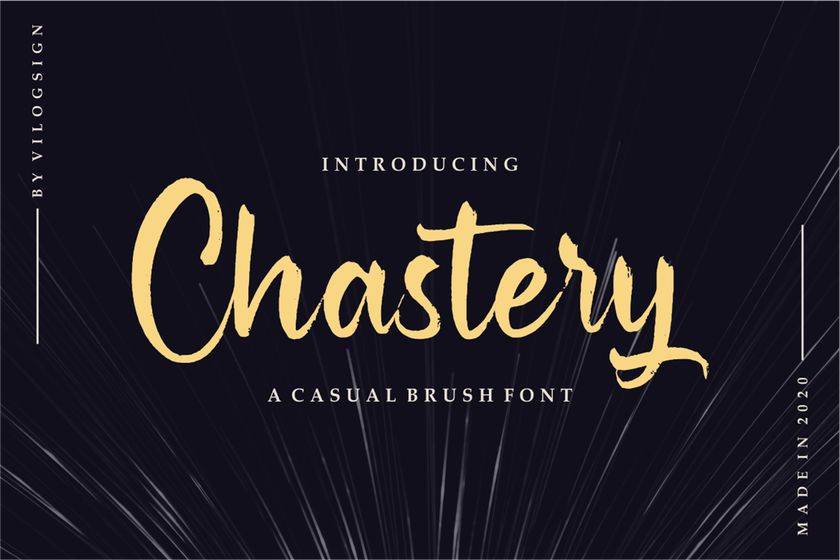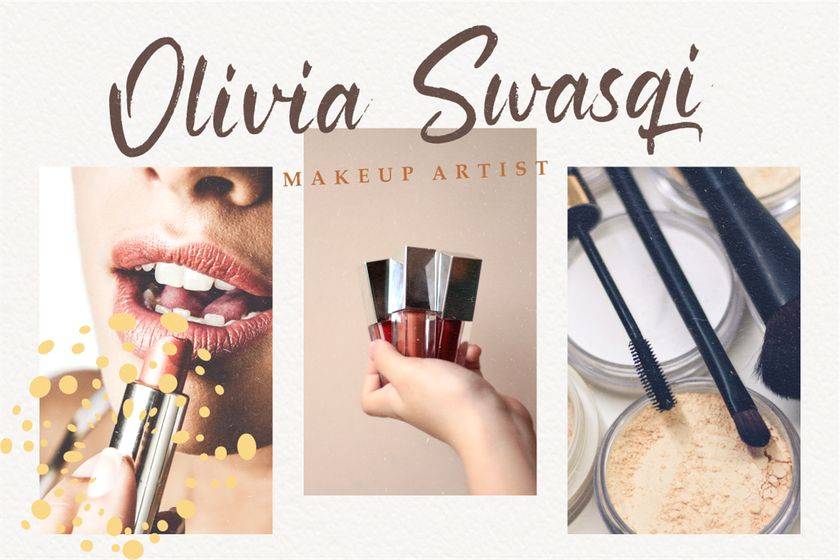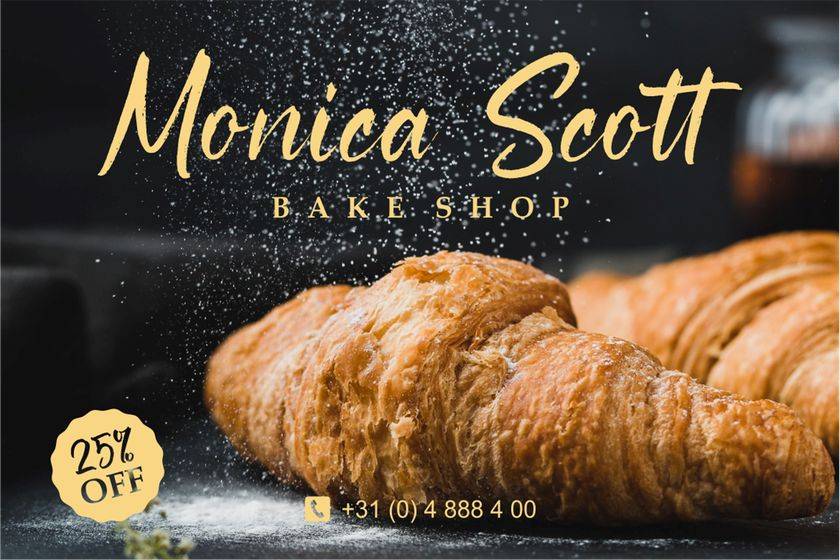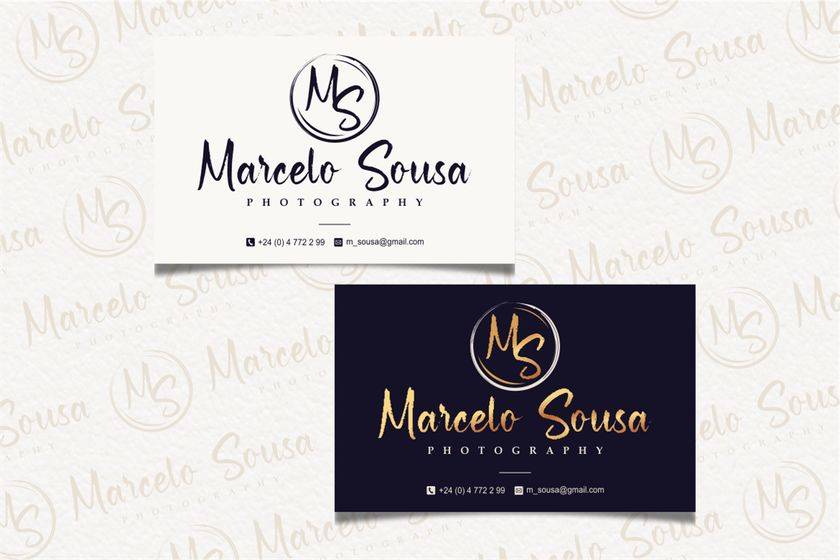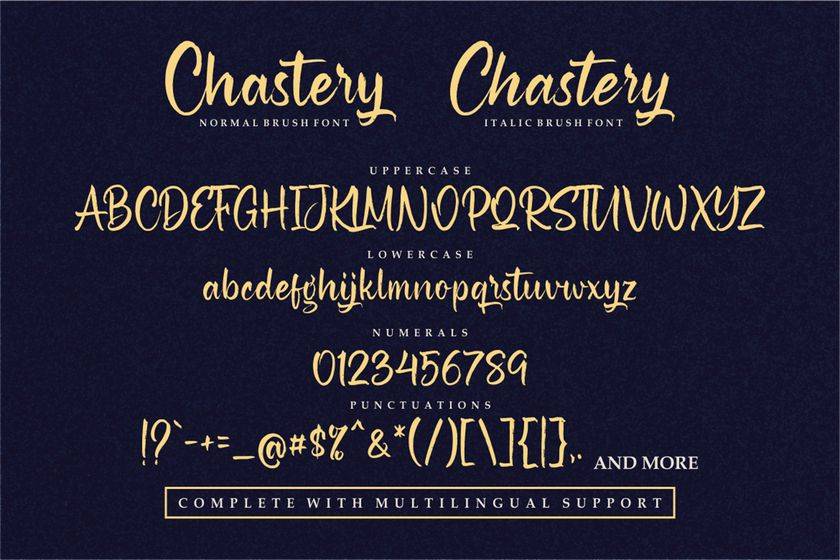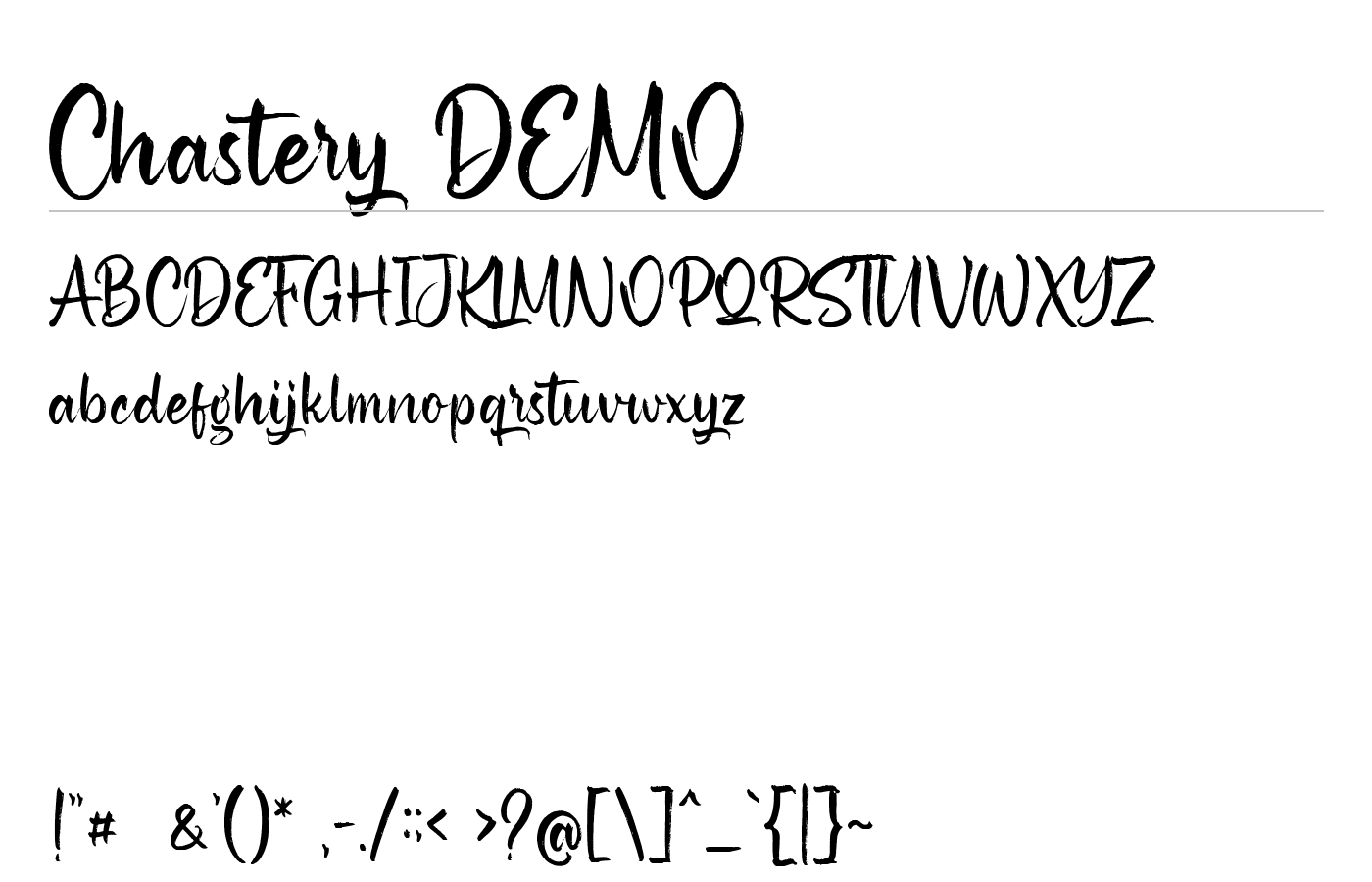
Chastery is a lively and expressive handwritten script font that features a casual yet artistic flair with its varied stroke widths and slight irregularities. Its playful character shapes and dynamic flow make it ideal for creative projects, giving a personal and approachable feel perfect for invitations, branding, and headline use where personality and warmth are desired.
Chastery Font
About Chastery Font
| Font family | Chastery Font |
| Designer | Vilogsign |